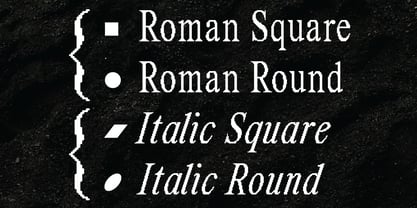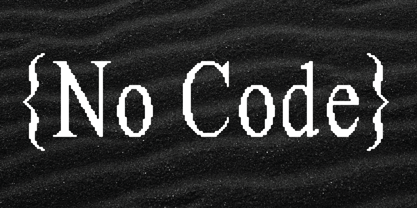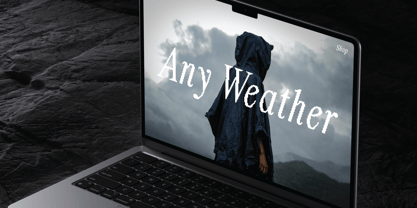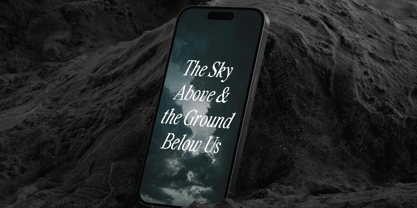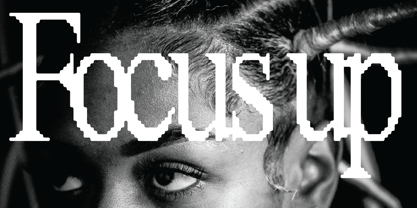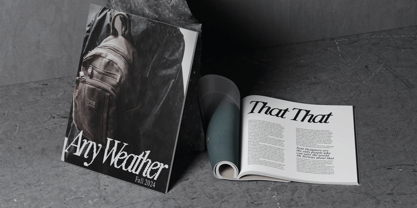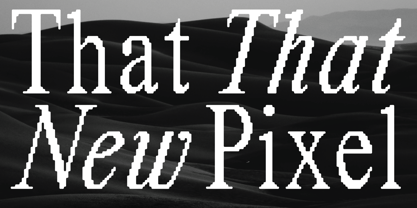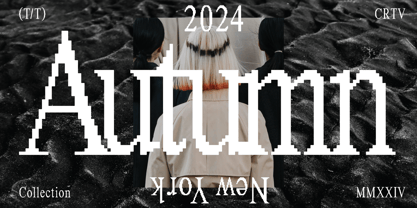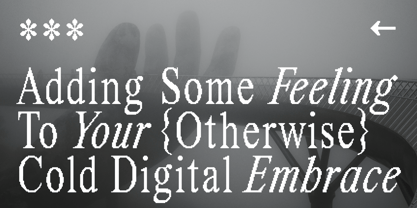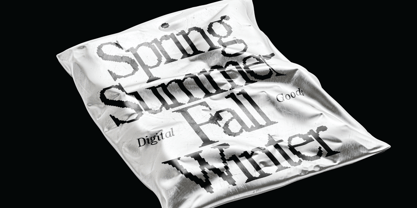
That That New Pixel
by That That Creative
That That New Pixel is a retro take on a condensed serif typeface. It comes in four styles regular and italic in both soft pixels and square pixels. This Typeface is best used for display and attention catching headlines. Perfect for social media, websites, and print. If you are looking to add bit of warmth to your crunchy pixel text That That New Pixel Might be the perfect fit.
Designers: Harbor Bickmore
Foundry: That That Creative